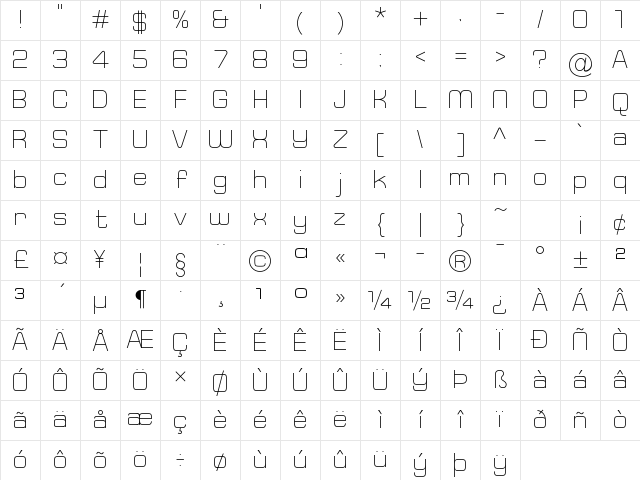
Typo Square Light Demo Regular Free Font
Typo Square Light Demo Regular
Foundry: StudioTypo
Designer: MEHMET ABACI
Design Context for Typo Square Light Demo
Typo Square Light Demo is a composed and adaptable typeface that performs quietly and consistently across a wide range of design contexts. Its slender proportions lend an understated elegance to any composition.